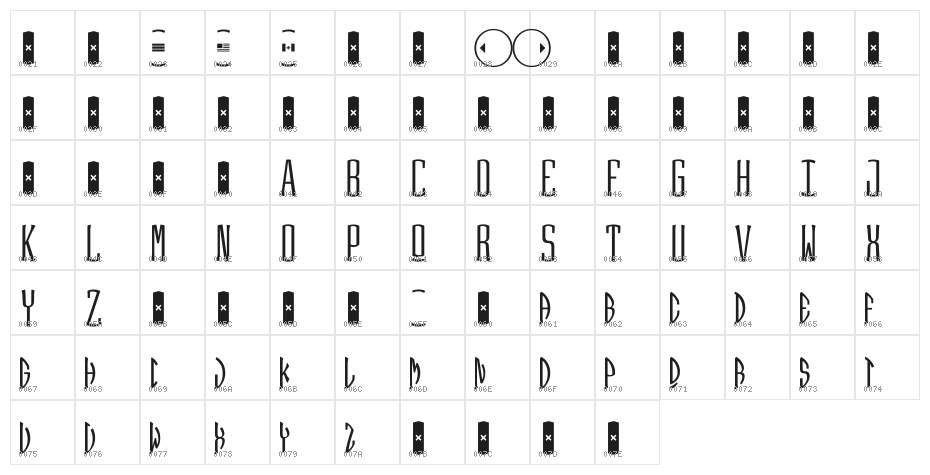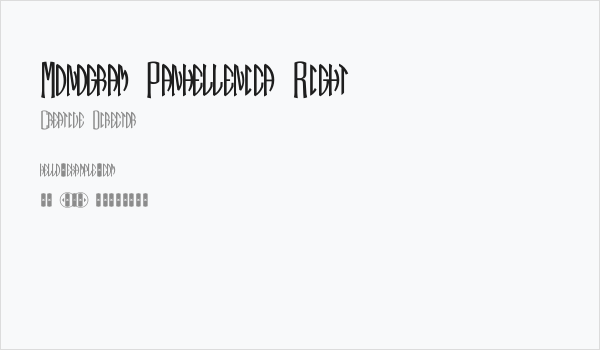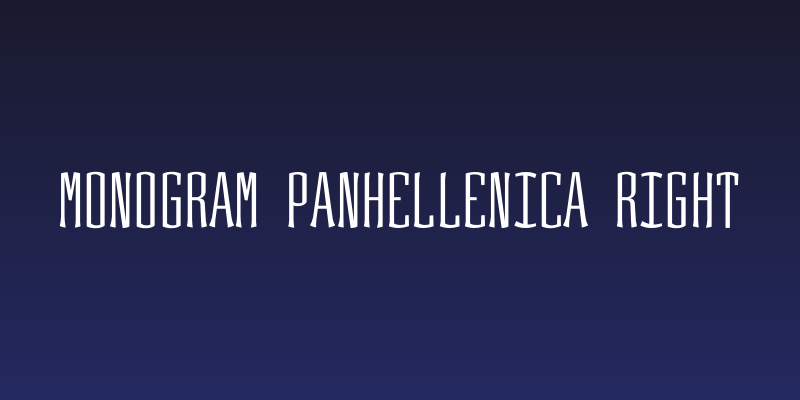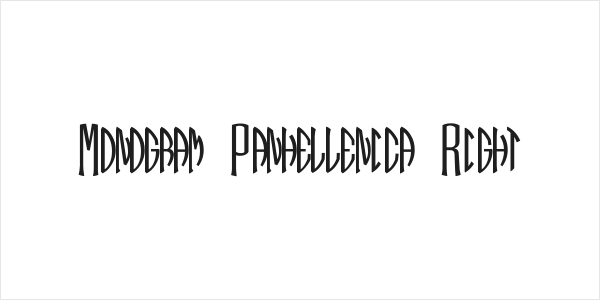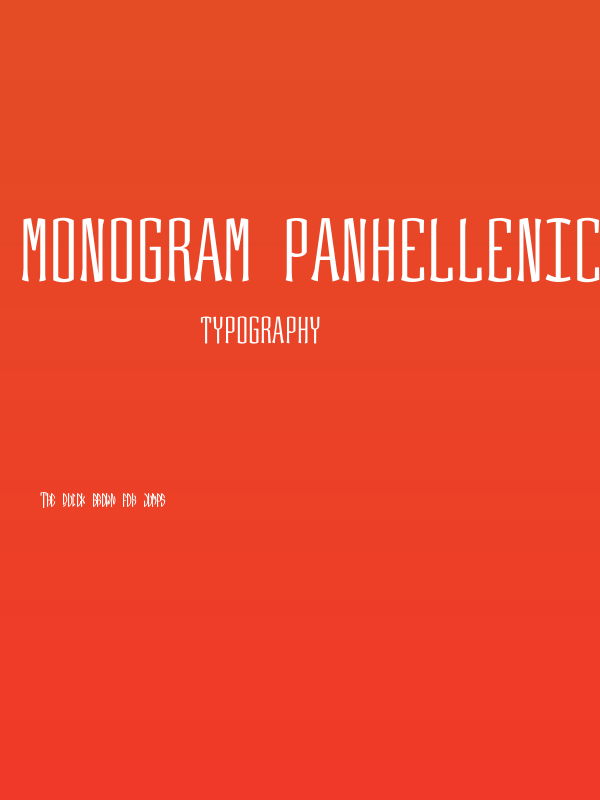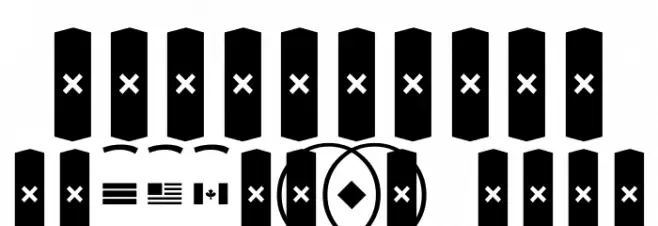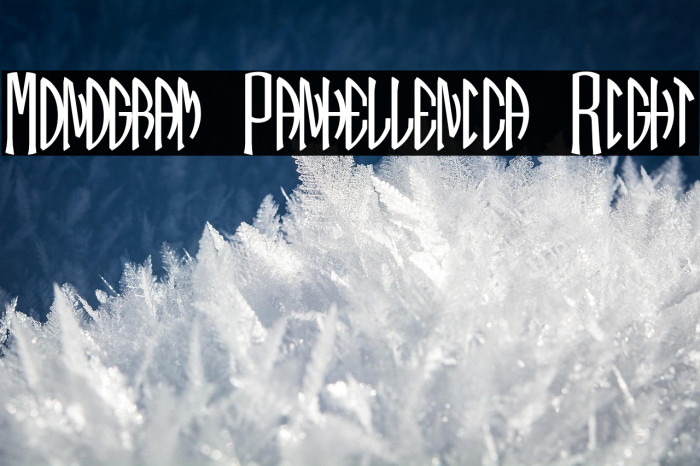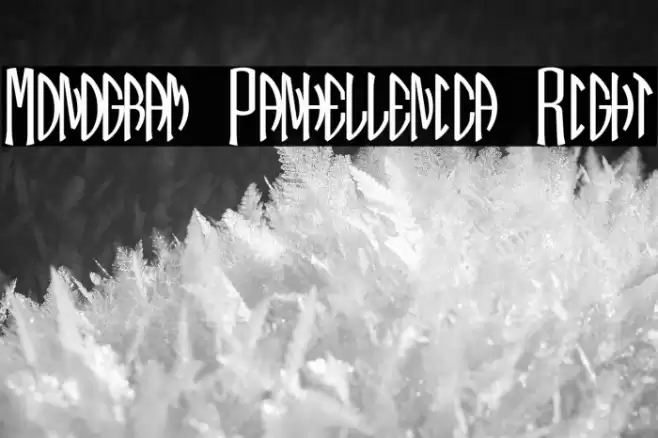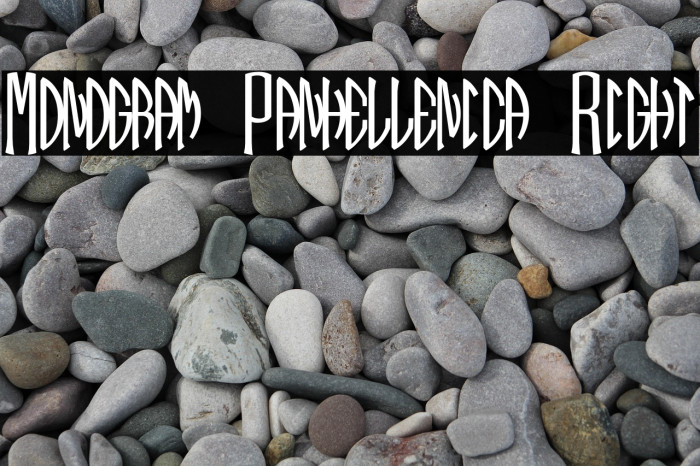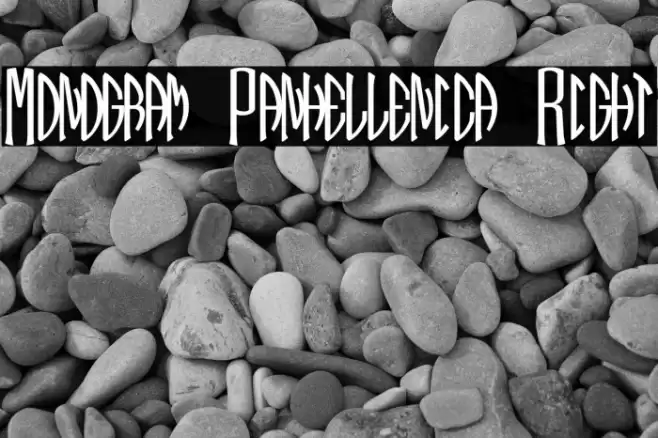
Monogram Panhellenica Right Font
Monogram Panhellenica Right Description
This font features a bold and elongated design with a distinct geometric style. The characters are tall and narrow, giving them a sleek and modern appearance. The uppercase letters are particularly striking, with sharp angles and clean lines that create a sense of precision and sophistication. The lowercase letters maintain the same geometric aesthetic, ensuring consistency across the typeface. The numbers and special characters are equally well-crafted, fitting seamlessly with the overall design. This font's unique style makes it ideal for creating eye-catching headlines and logos.
| Width | Condensed |
| Use Case | Headlines, Logos |
| Proposed Projects | Ideal for branding, logos, posters, and any project requiring a modern and striking typeface. |